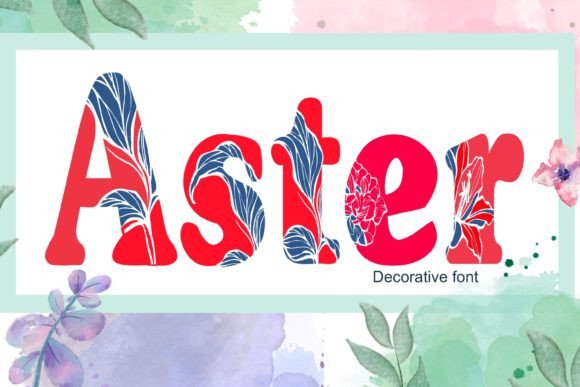
Behold, Aster Font, the ultimate typeface to ignite your creative spirit! Embrace the bold, thick letters that dance across your screen, embodying playfulness and authenticity like never before.
Are you yearning for a font that transports you to a world of endless possibilities? Look no further! Aster Font is your passport to imaginative adventures, where every word becomes a vibrant splash of color. Let the playful curves and sharp angles guide your creations, whether you're crafting enchanting wedding invitations or designing unforgettable party decorations.
But wait, there's more! Aster Font isn't just a pretty face; it's a master of versatility. Unleash your inner artist and let Aster Font transform your school projects, children's activities, and any other endeavor where creativity knows no bounds.
The mind behind this typographic masterpiece? Meet PJ Fonttein, the visionary font designer who breathed life into Aster Font. Each stroke, each curve, and each angle has been meticulously crafted to evoke a sense of joy and imagination that will captivate your audience.